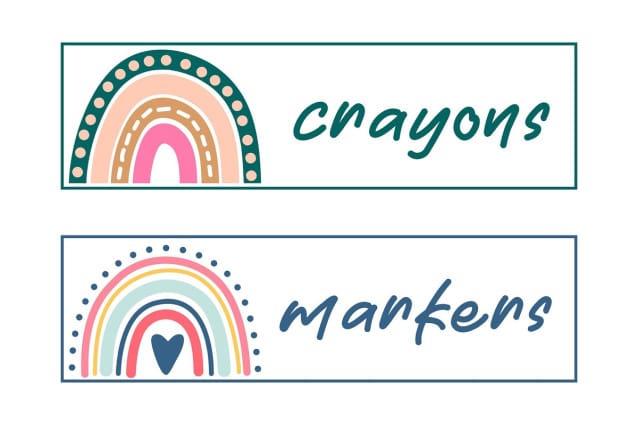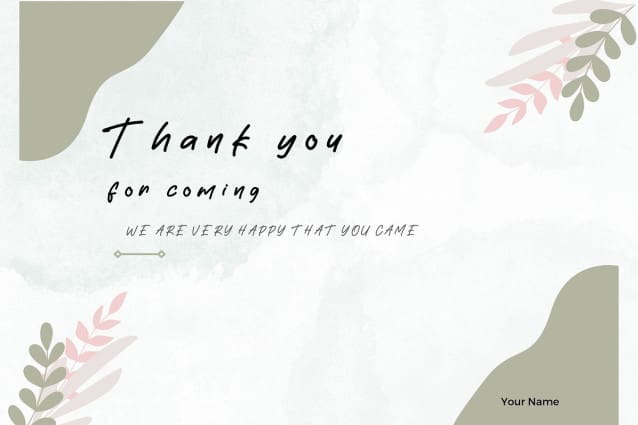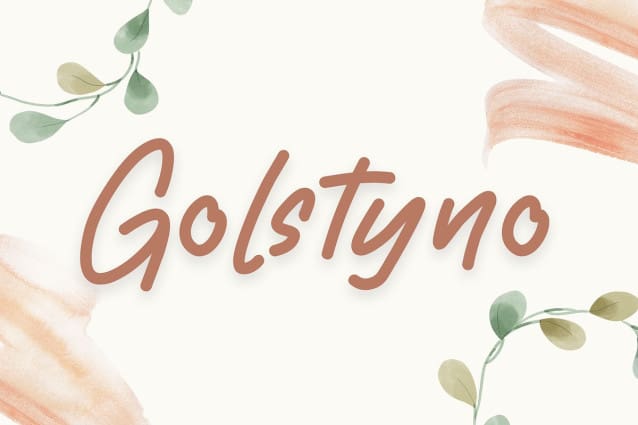
Golstyno Hand Font
Golstyno Hand Font is a simple and dainty handwritten font. Its natural and unique style makes it incredibly fitting to a large pool of designs. Use this font for your designs and explore its endless possibilities.